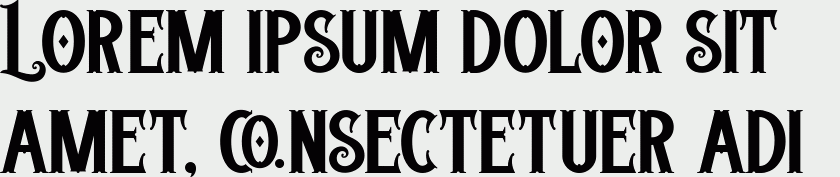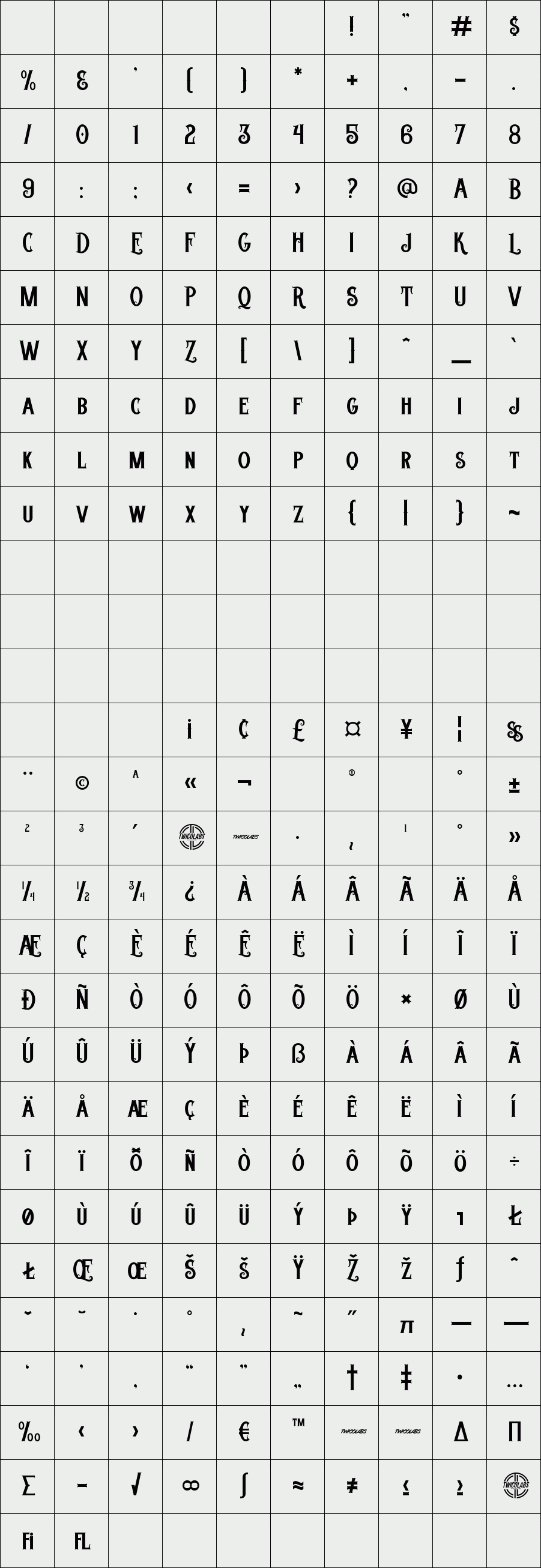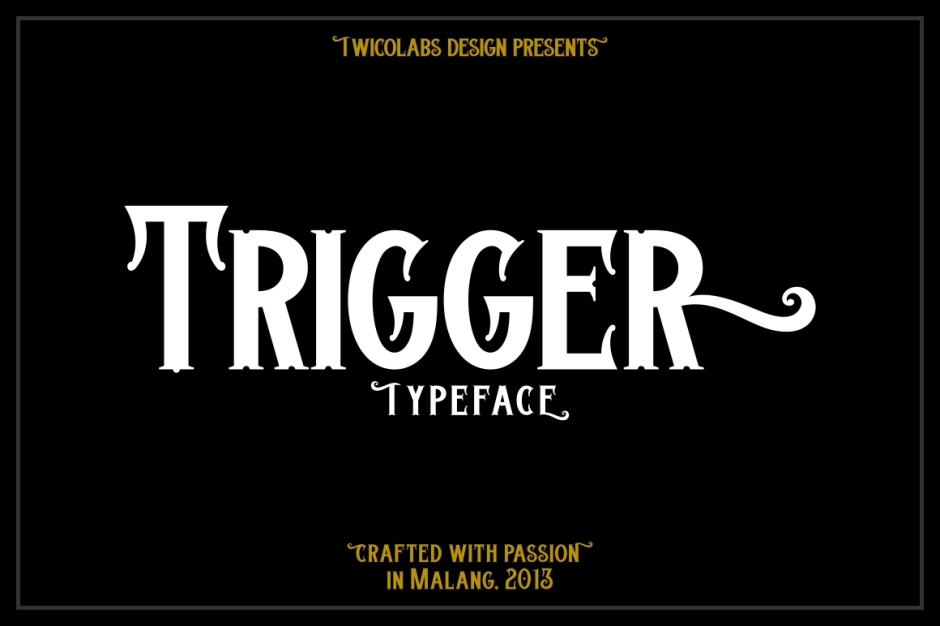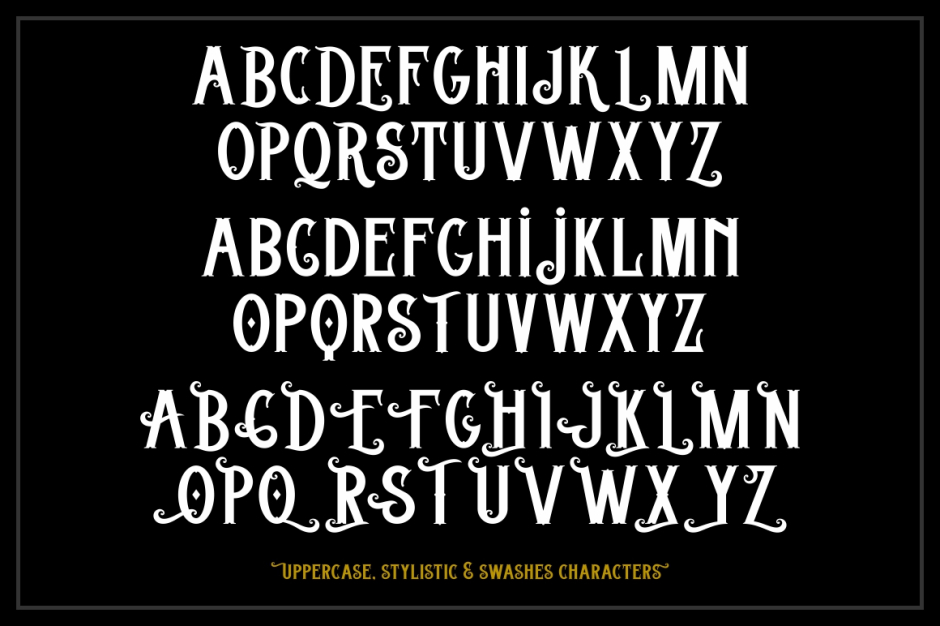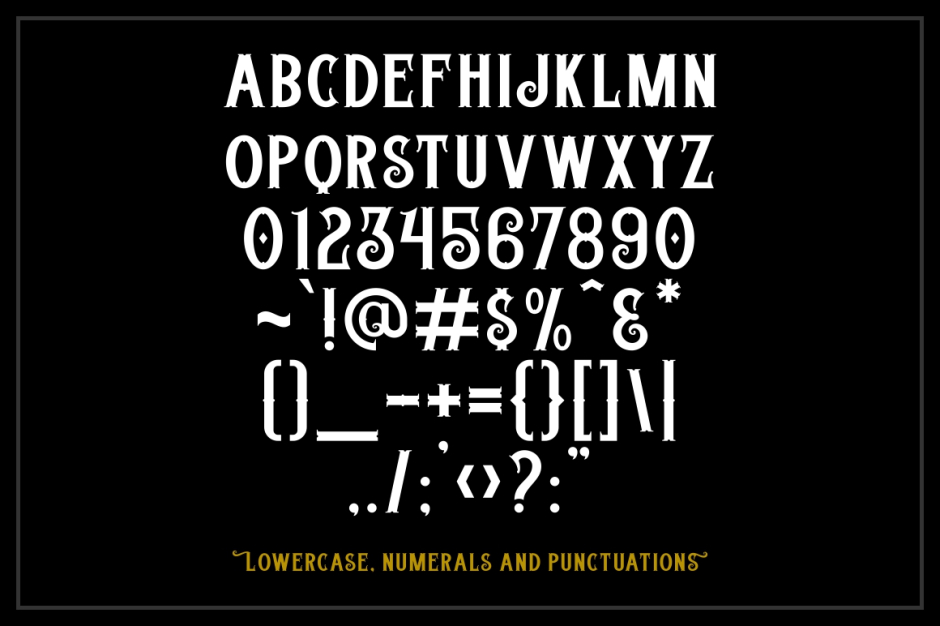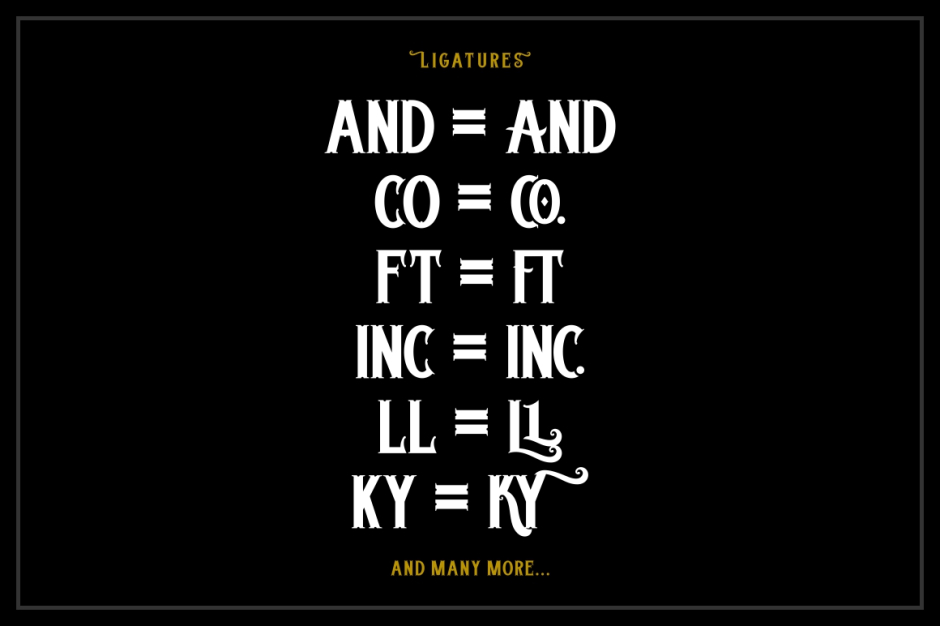
Trigger
A vintage font / typeface inspired by the old advertisement and signpainting letters in early 1900s.
Loaded with tons of ligatures, swashes, stylistic and alternative characters in OpenType Features,
gives you lots of options to play with. Suits best for your vintage / classic themed designs and any typo junkies.
Comes in uppercase, lowercase, numerals, basic punctuations and multilingual characters.